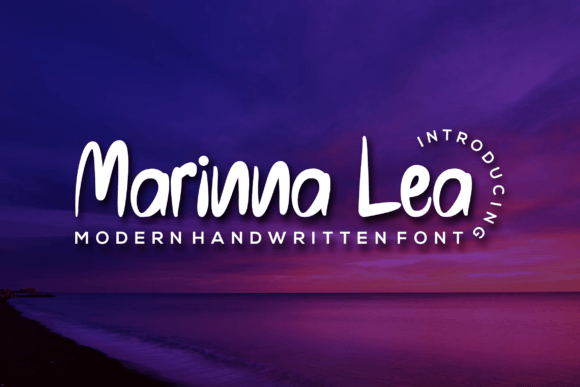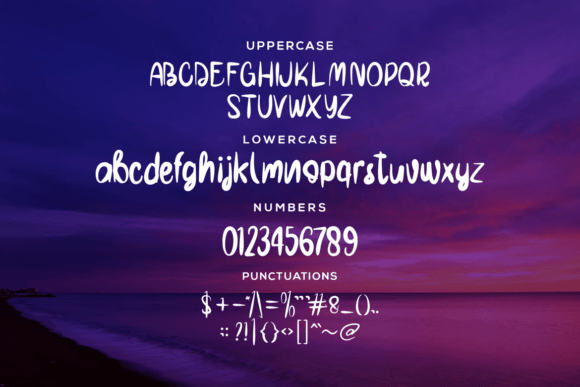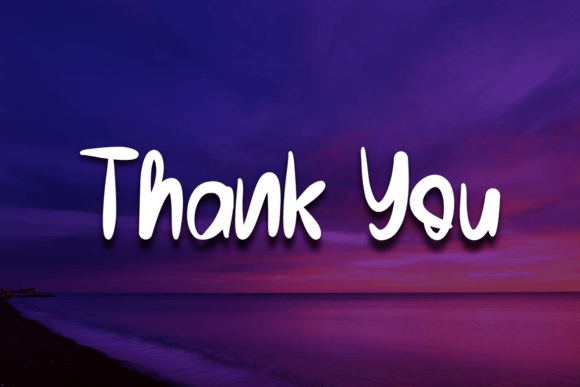
Marinna Lea Font
**Marinna Lea**: *Where Cute Meets Quirky Friendliness*
Marinna Lea isn’t just a font; it’s a delightful blend of cuteness and quirky friendliness, thoughtfully designed to add a touch of whimsy and charm to your creative projects. With its playful and slightly quirky characters, this handwritten font exudes a sense of approachability and creativity that seamlessly complements various design applications.
What sets Marinna Lea apart is its remarkable ability to effortlessly infuse a sense of fun and whimsy into your designs while maintaining an inviting and friendly vibe. The font’s whimsical characters bring joy to your projects, making it an ideal choice for a myriad of creative applications. Marinna Lea has the potential to brighten up your designs and add a playful and charming touch.
Marinna Lea strikes the perfect balance between adorable aesthetics and a touch of quirkiness, making it a versatile and heartwarming choice for projects that aim to engage and inspire.
In crafting and DIY projects, Marinna Lea adds a layer of personality and creativity, making them even more delightful and unique. For digital design, the font’s friendly appeal enhances user engagement and makes content more relatable. Whether you’re working on invitations, branding materials, social media graphics, or any other visual content, Marinna Lea brings an air of creativity and authenticity to your projects.
Marinna Lea’s adaptability is one of its most remarkable qualities. It can transition seamlessly from a casual and relaxed tone to a more lively and spirited one, making it suitable for a wide range of creative applications. Its ability to evoke positivity ensures that it remains a cherished choice for designers and creators across diverse industries.
In summary, Marinna Lea is more than just a font; it’s a design asset that skillfully combines cuteness with quirky friendliness. Its unique blend of playful characters and creative charm positions it as an indispensable tool for anyone seeking to add a touch of personality and whimsy to their visual communication. Embrace the cuteness and quirky friendliness of Marinna Lea, and watch your designs come to life with warmth and creative flair.